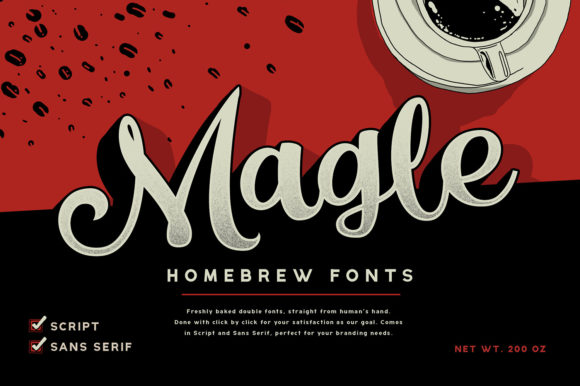
In the bustling world of design, your creations have the power to awaken taste buds and inspire culinary adventures. Let Magle Font become the secret ingredient that elevates your food logo to tantalizing heights. With its delectable dance of script and sans serif, Magle Font is a feast for the eyes, a symphony of visual delight that transforms your designs into mouthwatering masterpieces.
Magle Font, the brainchild of the ingenious konstantinestudio, is a culinary artist's dream come true. Its meticulously crafted characters exude a charm that is both timeless and utterly modern, capturing the essence of culinary delights with effortless grace. Whether you're a seasoned chef showcasing your culinary prowess or a passionate food blogger sharing your culinary escapades, Magle Font will add a dash of flavor to your every creation.
Picture this: a tantalizing logo that dances across your food packaging, beckoning customers with its irresistible allure. Magle Font's script font, with its graceful curves and playful flourishes, evokes the artistry of a master chef, while the sans serif font, with its clean lines and confident strokes, adds a touch of modern elegance. Together, they create a harmonious blend that speaks volumes about your dedication to culinary excellence.
Magle Font is not just a font; it's a culinary adventure waiting to be explored. Let your imagination run wild as you craft logos, menus, social media posts, and more, each one infused with Magle Font's unique charm. Its versatility is truly remarkable, adapting seamlessly to any culinary niche. From rustic farm-to-table establishments to sleek urban bistros, Magle Font has the power to transform your designs into culinary masterpieces that leave a lasting impression.
So, dear culinary artist, embark on this delectable journey with Magle Font as your trusted companion. Let your creativity flourish as you create designs that are as visually stunning as they are mouthwatering. Magle Font is more than just a font; it's a culinary passport to a world of endless possibilities. Bon appétit!